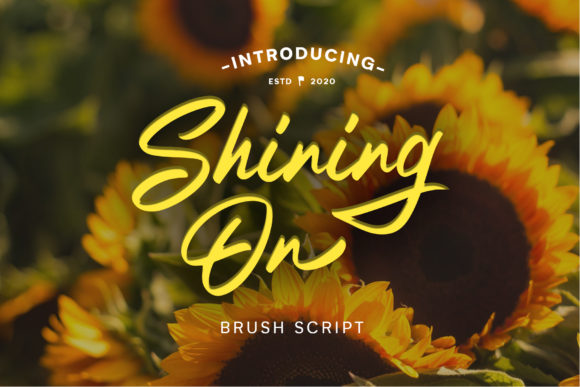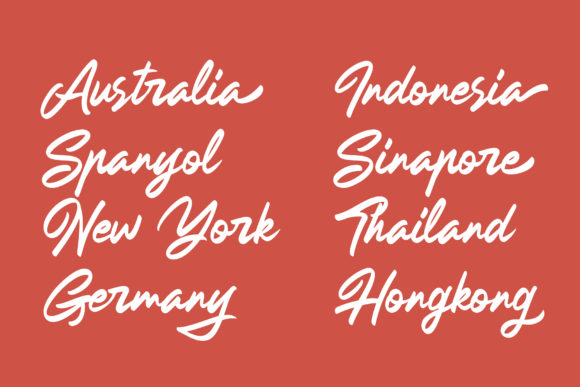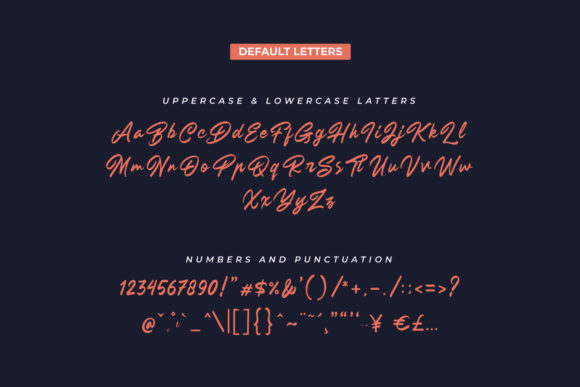
About Shining on Font
Shining on is a handwritten script font, with an elegant and beautiful look. It looks stunning on wedding invitations, thank you cards, quotes, greeting cards, logos, business cards and every other design which needs a handwritten touch.